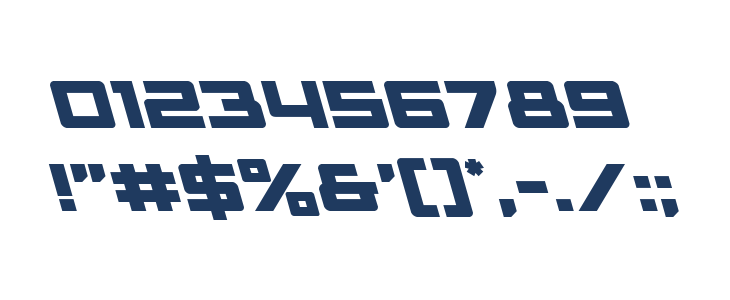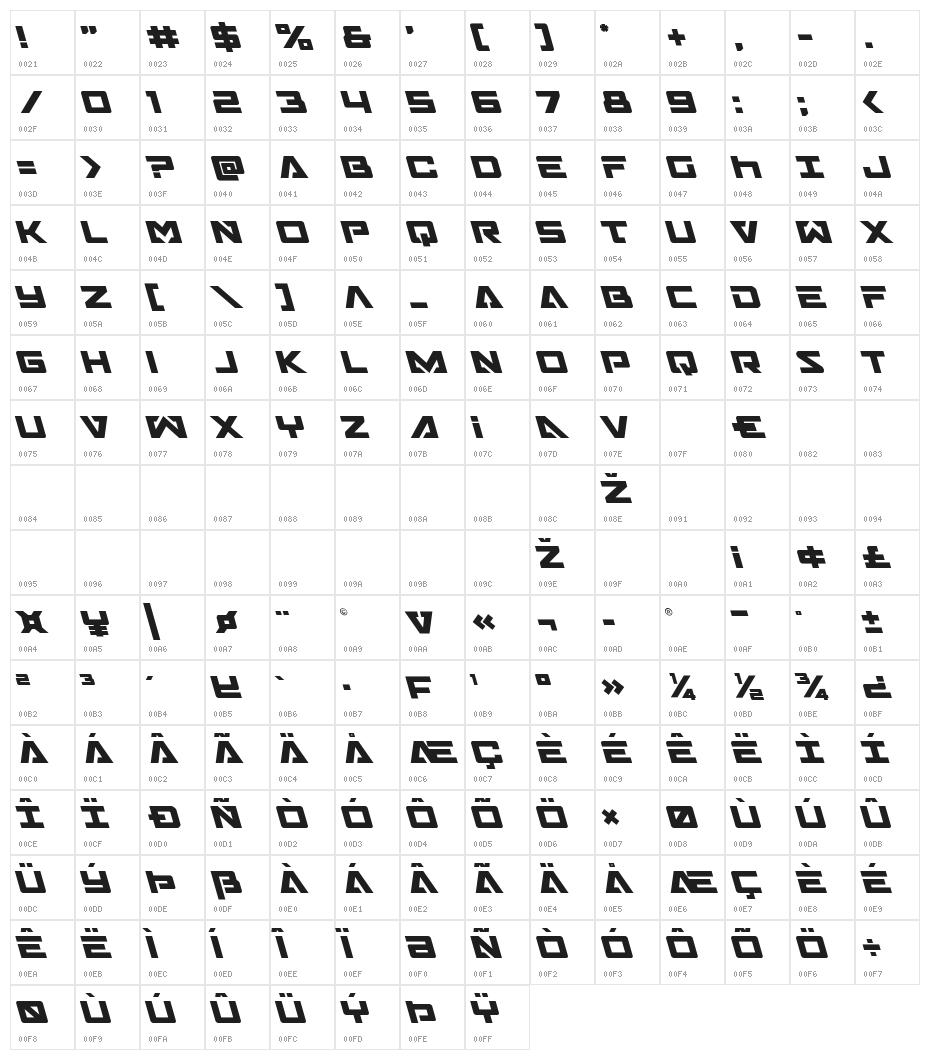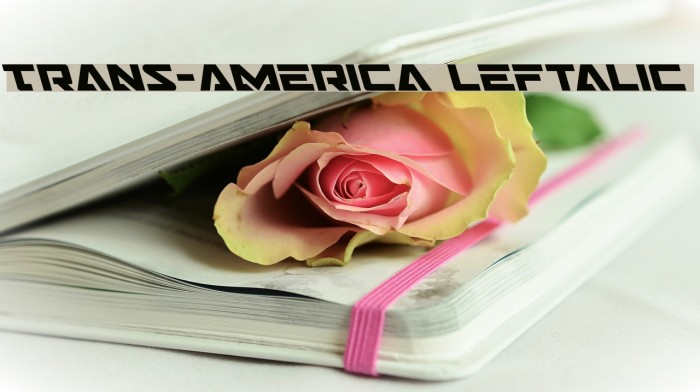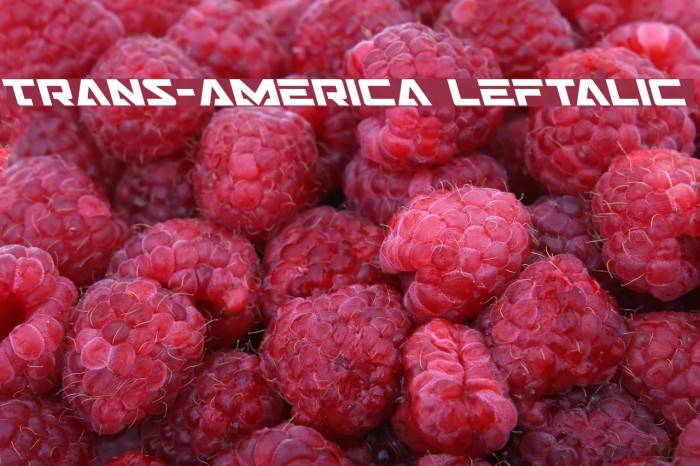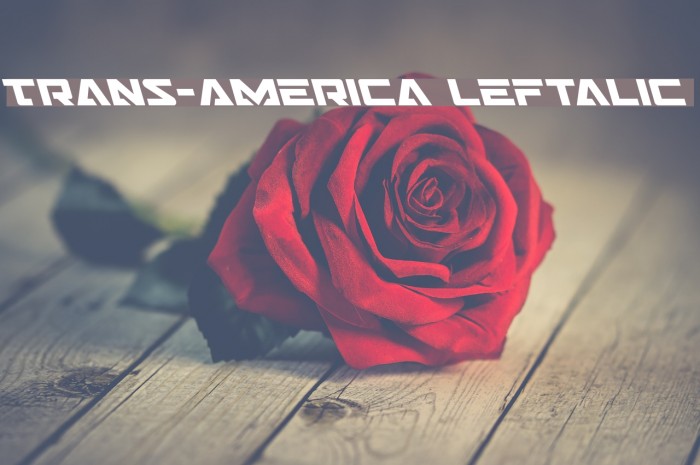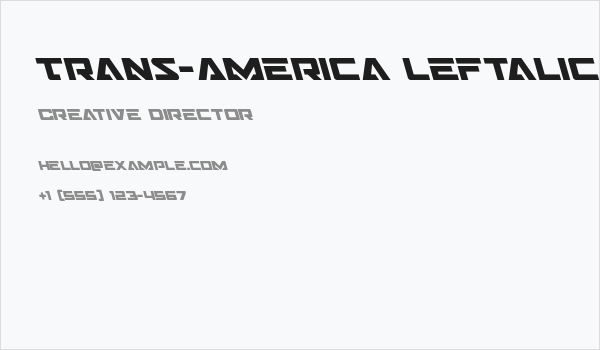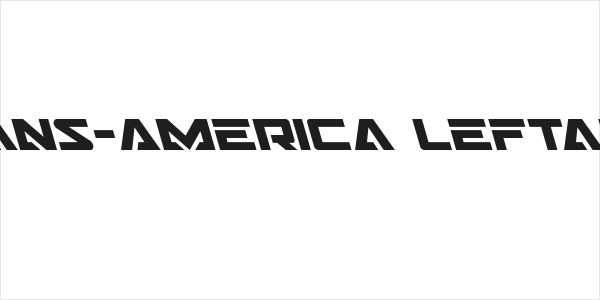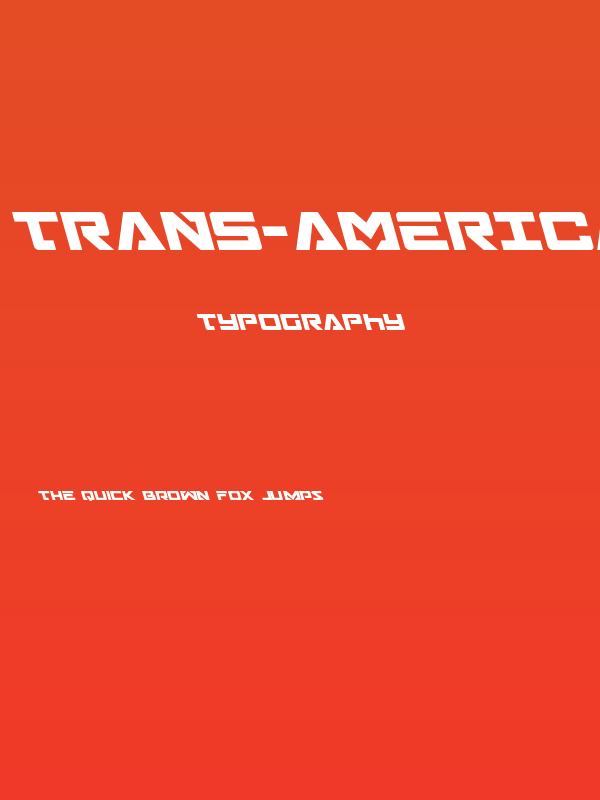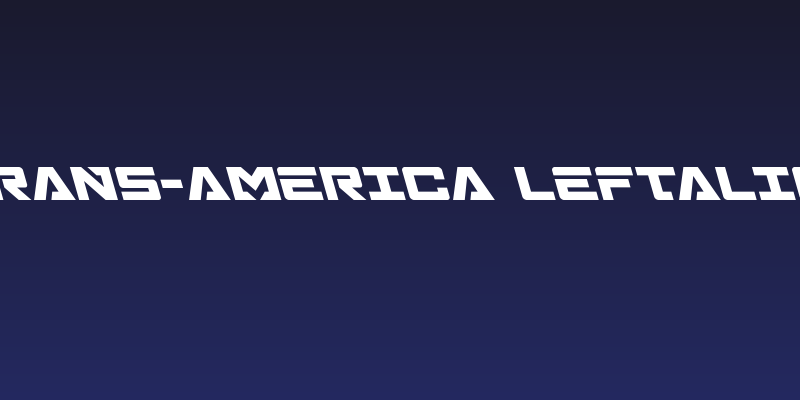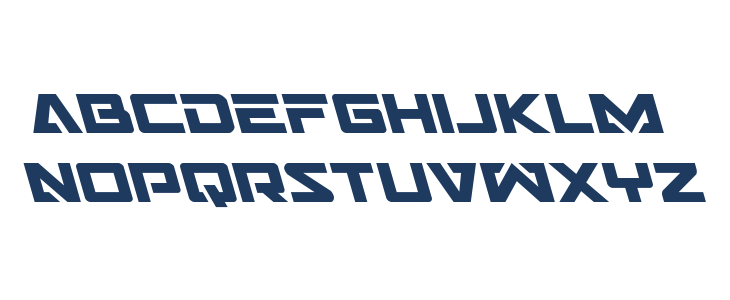
Trans-America Leftalic Font
Trans-America Leftalic Description
This font features a bold, geometric design with a futuristic flair. The characters are sharply angled, creating a dynamic and energetic appearance. The uppercase letters are particularly striking, with a strong presence that commands attention. The lowercase letters maintain the same angular style, ensuring consistency throughout. Numbers and special characters are equally bold and stylized, making them suitable for a variety of design applications. The overall design is modern and impactful, ideal for projects that require a strong visual statement.